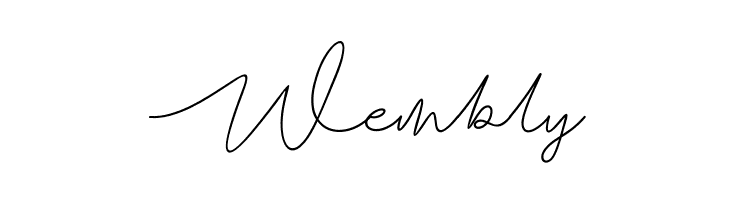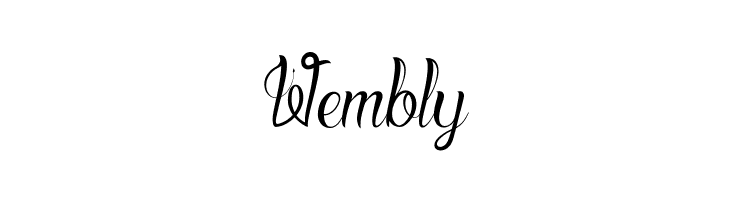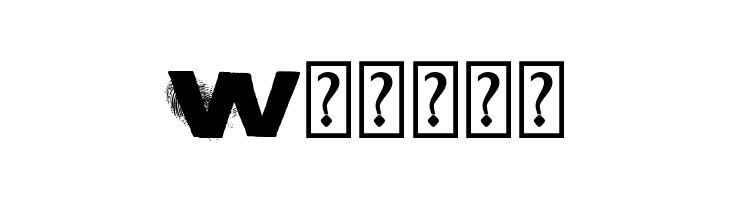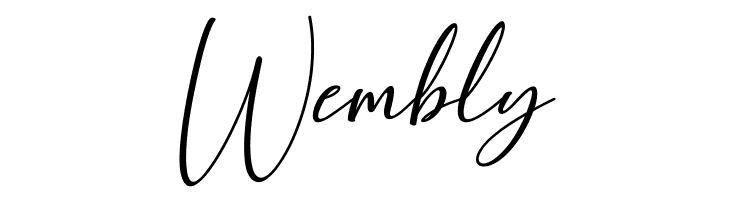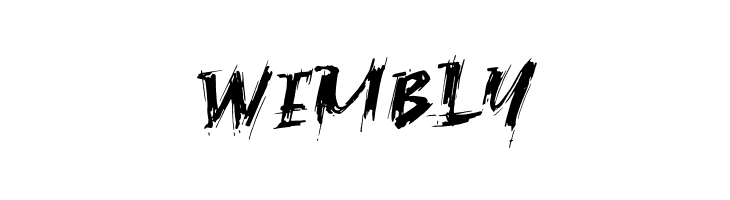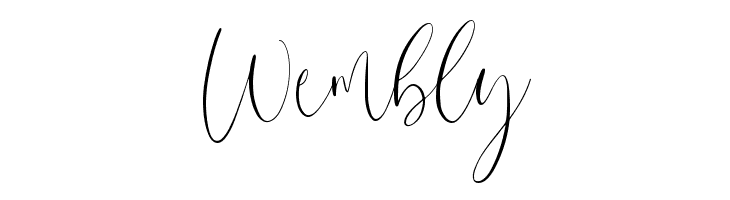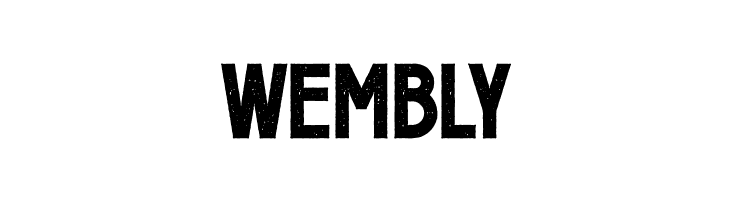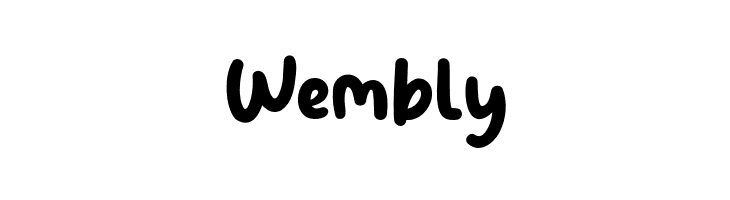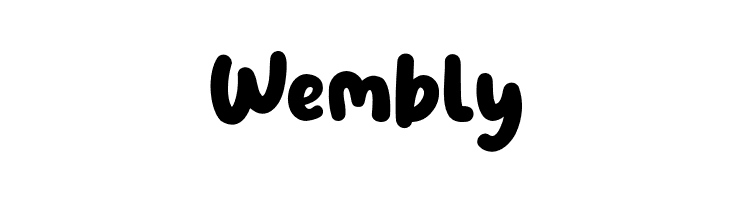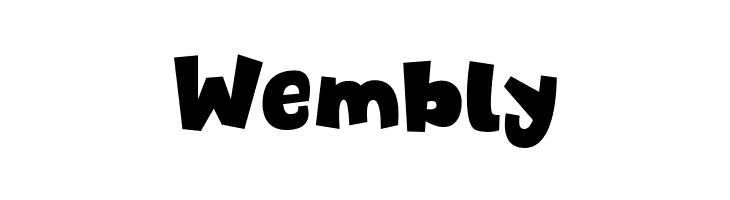
An elegant script font with fluid, interconnected strokes and a sophisticated appearance.
An ornate and decorative script font with elaborate swirls and flourishes.
An elegant script font with decorative swashes and flowing cursive style.
A bold, textured font with a fingerprint overlay, perfect for edgy designs.
A dynamic and elegant script font with fluid, sweeping strokes.
A dynamic, brush-style font with bold, jagged strokes and an energetic appearance.
A modern, elegant script font with dramatic flourishes and smooth curves.
A graceful script font with fluid, cursive strokes and elegant curves.
A bold, distressed font with a textured, stamp-like appearance.
A playful, rounded font with bold, smooth curves and a hand-drawn feel.
A playful, handwritten font with rounded edges and a casual, friendly style.
A playful, bold font with rounded, bubbly characters and a whimsical style.
A bold, playful font with thick, rounded strokes and a whimsical style.
A bold, geometric font with angular, fragmented characters for a futuristic look.
An elegant and flowing script font with sophisticated loops and swirls.
An elegant script font with flowing, interconnected letters and sophisticated style.
A graceful script font with flowing, cursive strokes and elegant flourishes.
A casual, handwritten font with fluid, connected strokes and a playful yet sophisticated style.
An elegant script font with intricate loops and swashes, perfect for sophisticated designs.
An elegant script font with flowing, handwritten lines and sophisticated curves.